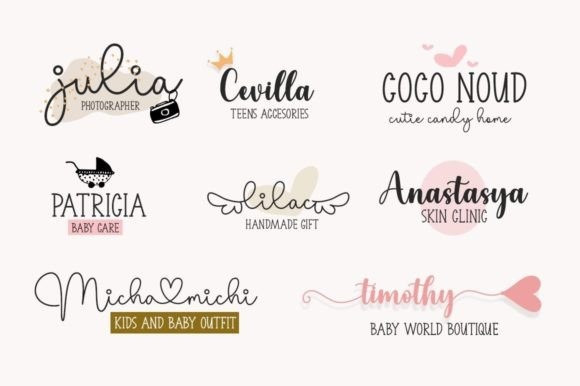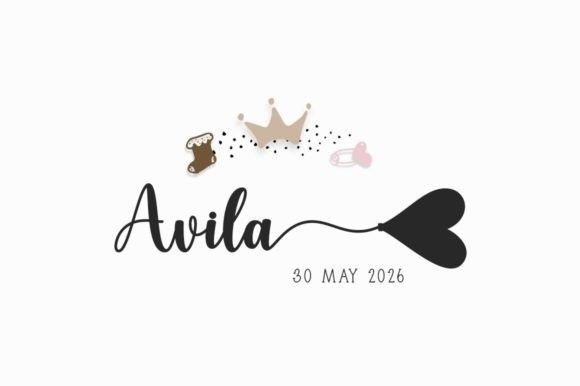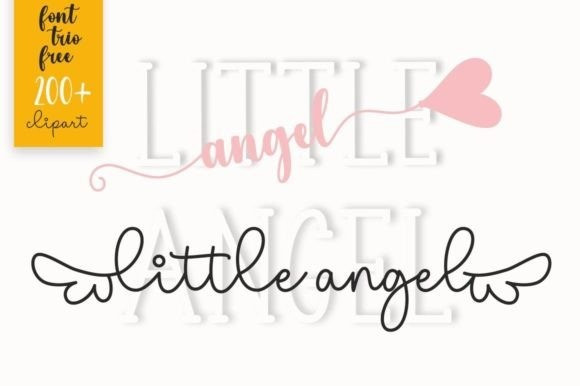
Little Angel Font Trio
Little Angel Font Trio, consists of three fonts (handwritten, script, and serif) designed to complement each other perfectly. Together or apart, these fonts are ideal for adding a chic and cheery touch to your crafts. This font is PUA encoded, which means you can access all glyphs and swashes with ease!